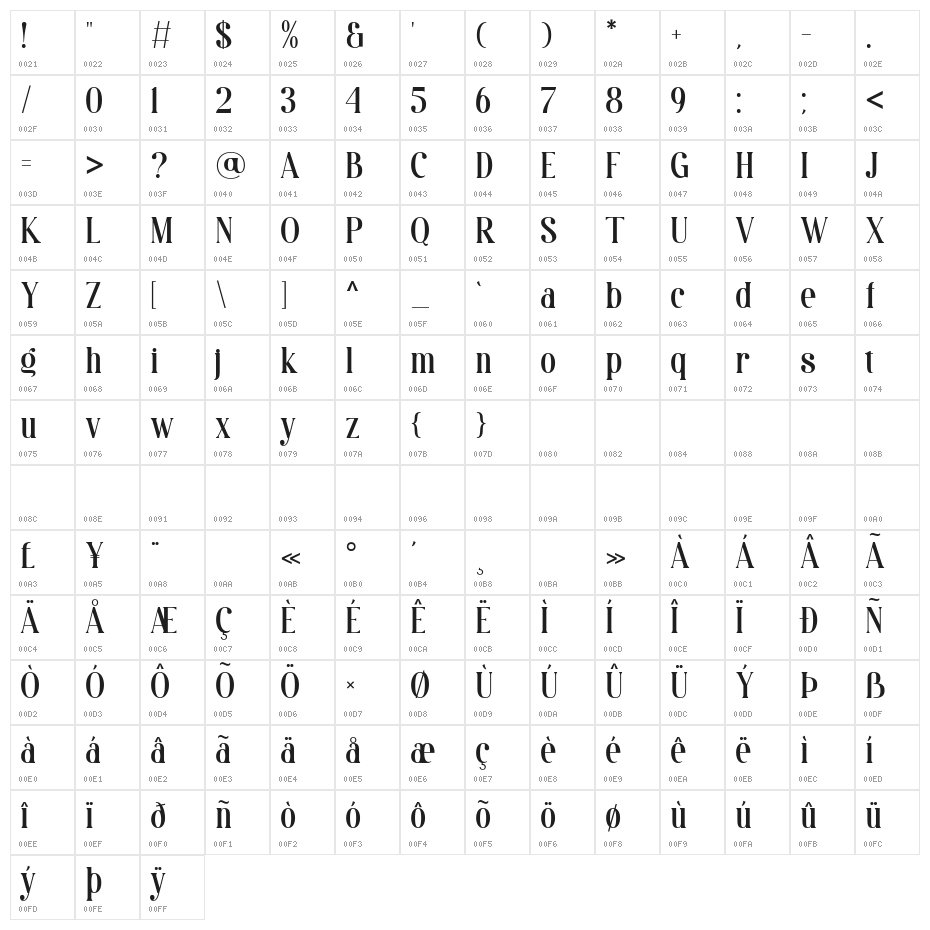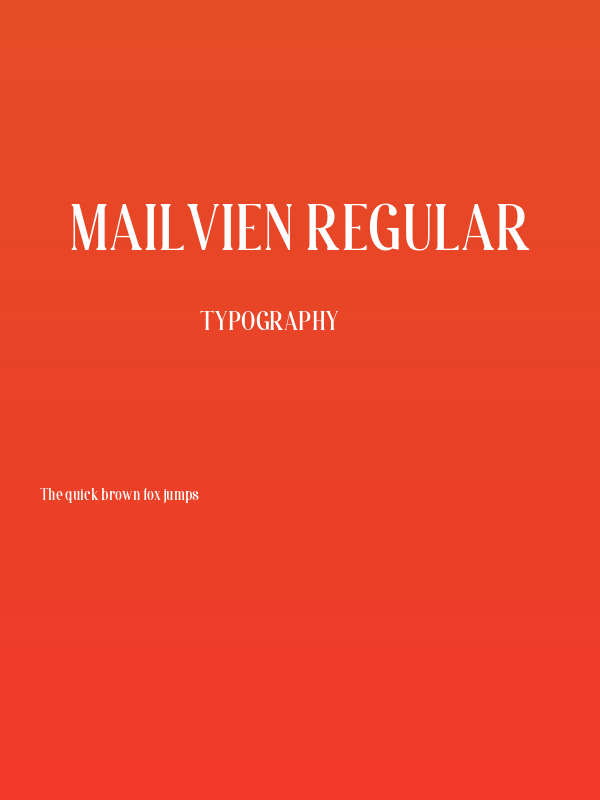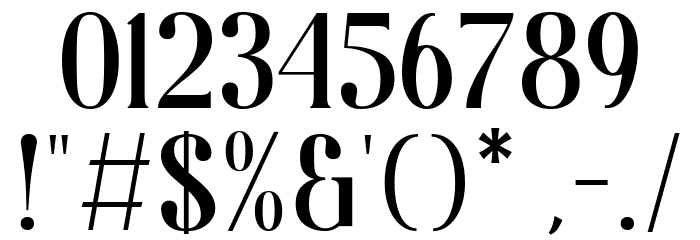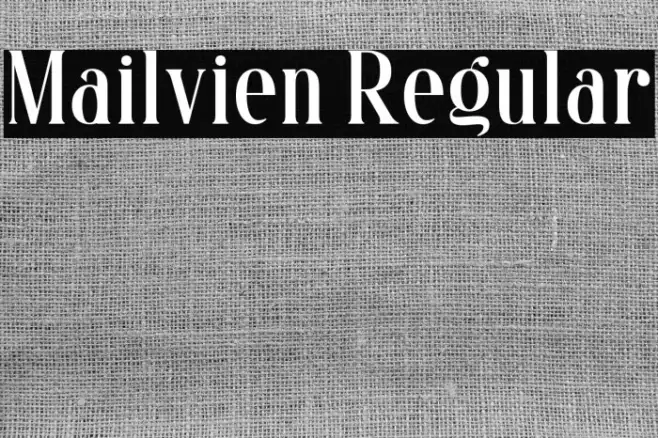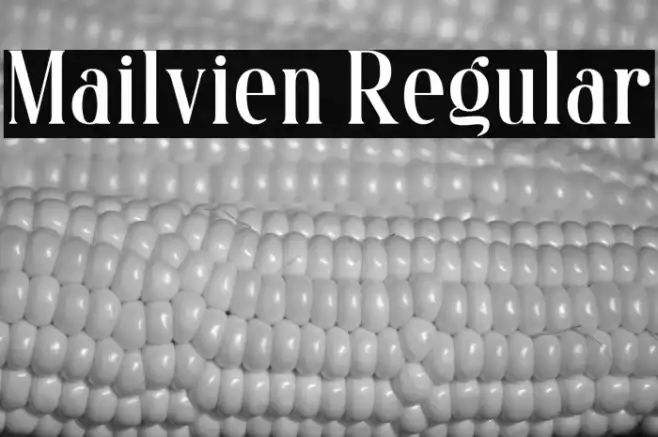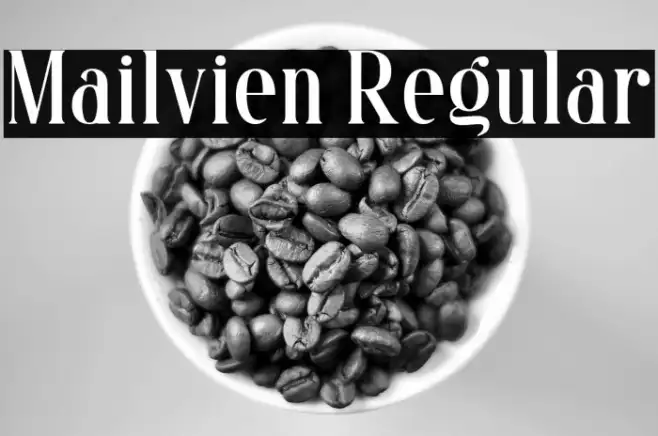
Mailvien Regular Font
Mailvien Regular Description
This font features a classic serif style with a modern twist, characterized by its elegant and slightly condensed letterforms. The serifs are pronounced, adding a touch of sophistication and readability. The uppercase letters are tall and commanding, while the lowercase letters maintain a consistent height, providing a balanced appearance. The numerals are clear and distinct, making them suitable for both display and text purposes. Special characters are well-designed, ensuring versatility across various applications. The overall design is refined, making it suitable for formal and professional settings.
Mailvien Regular